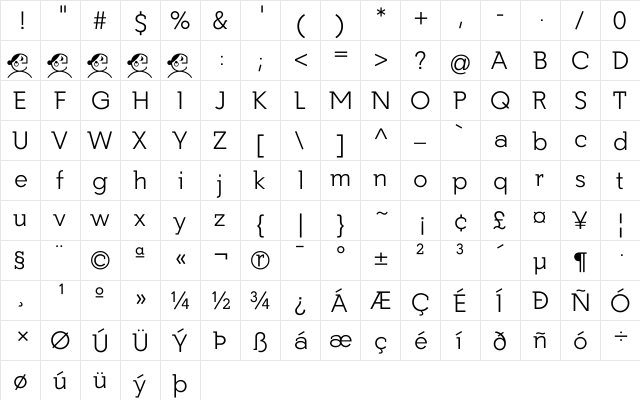
Getho Light Regular
| Foundry | deFharo |
| Designer | Fernando Haro |
Design Context for Getho Light Typeface
Getho Light offers clean, dependable letterforms without strong stylistic allegiance, making it a practical choice for designers who need flexibility. Its slender proportions lend an understated elegance to any composition.